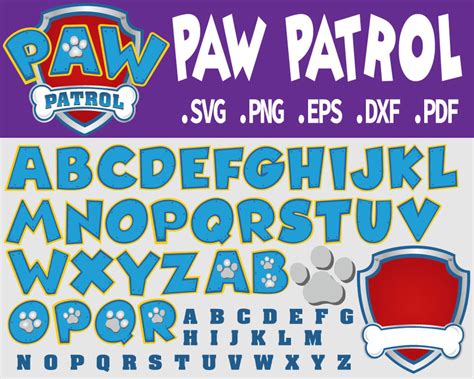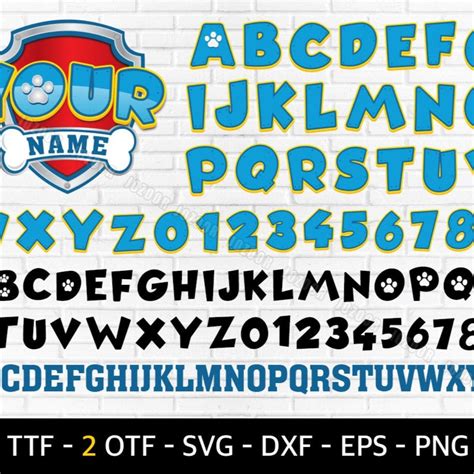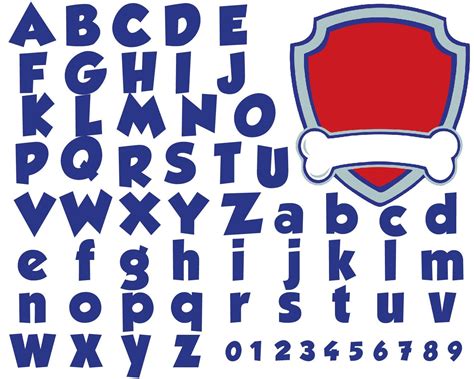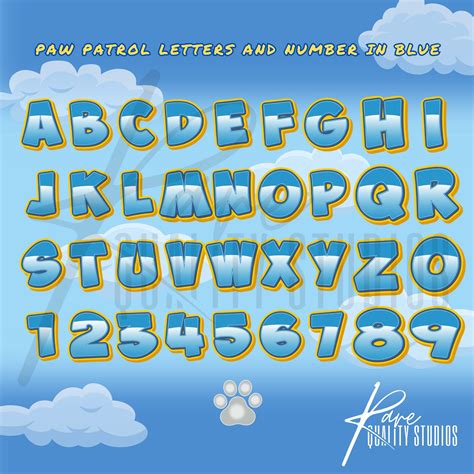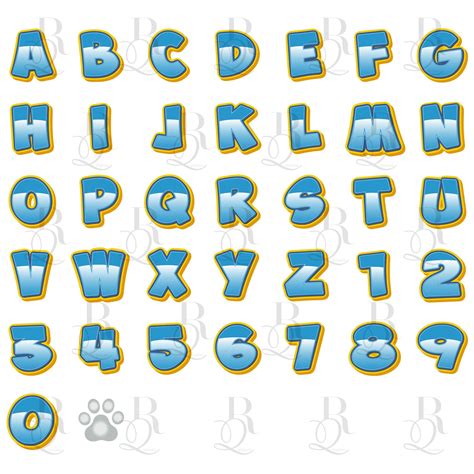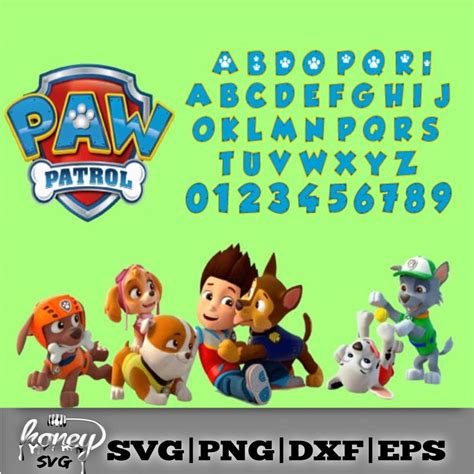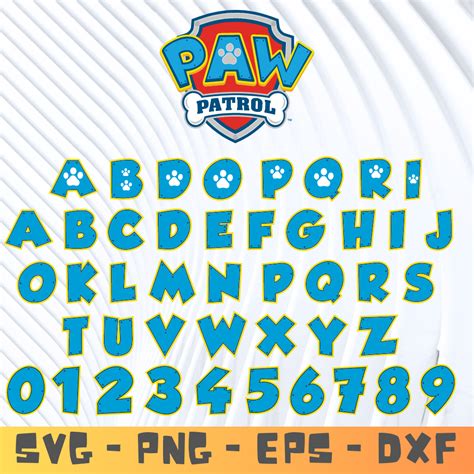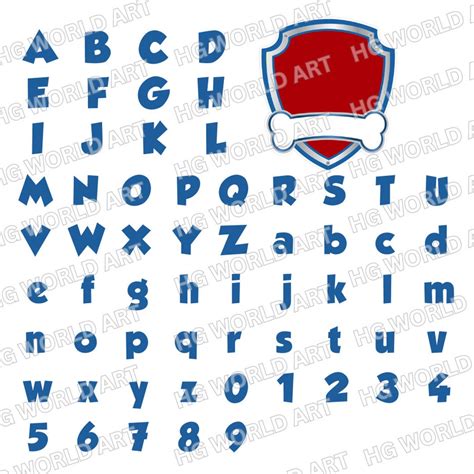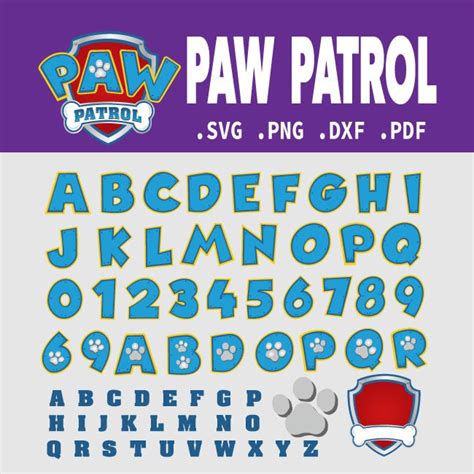
PAW PATROL FONT
The paw patrol font is a popular and playful font design inspired by the beloved animated series, PAW Patrol. This font is a fun and whimsical addition to any creative project, offering a unique and recognizable style that captures the spirit of the show. With its vibrant and energetic aesthetic, the paw patrol font is perfect for adding a touch of personality and charm to various applications.
The font features a range of letters and characters designed with a playful and cartoonish look, often incorporating the iconic PAW Patrol logo and elements. It is a great choice for creating eye-catching headlines, logos, and text designs, especially for projects related to children's entertainment, education, or merchandise.
One of the key benefits of using the paw patrol font is its ability to engage and delight audiences, particularly younger demographics. The font's unique style and association with the popular show can help capture the attention of fans and create a sense of familiarity and excitement.